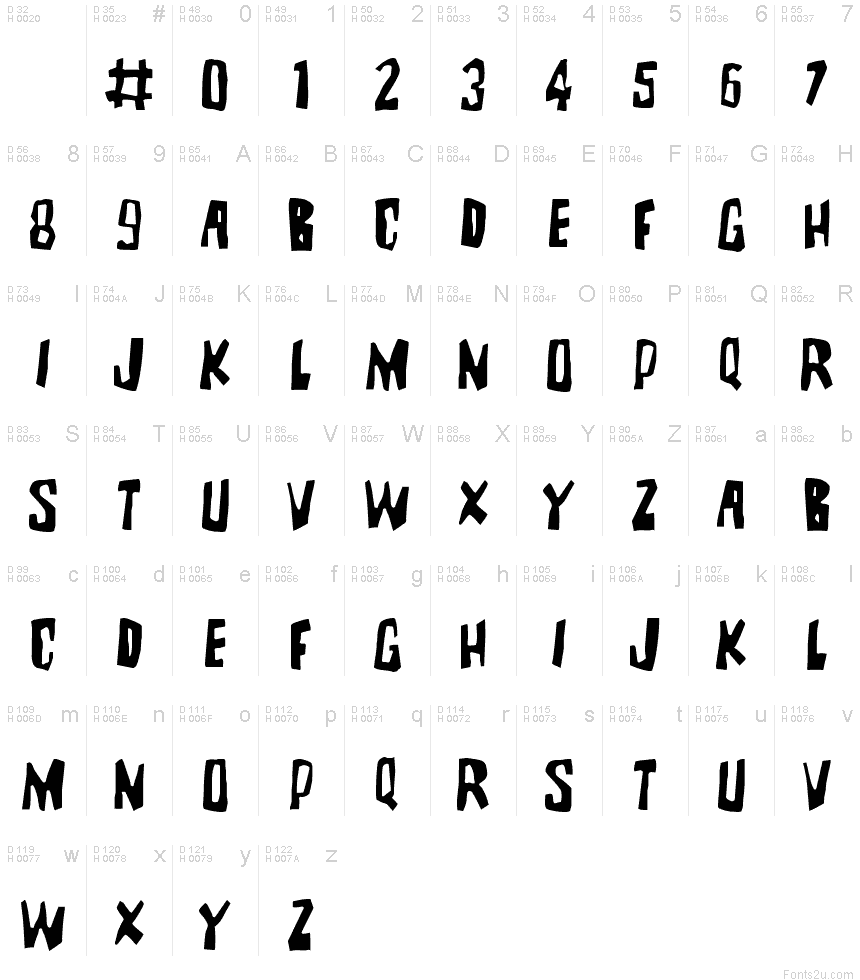
BrutalityExtra
Brutality Extra font by Jakob Fischer of PizzaDude is a free distorted display typeface that looks like it’s been hacked out of black paper with a blunt knife. Each letter leans and wobbles with a rough, cut-and-paste energy, giving headlines a raw, DIY edge. The chunky shapes and uneven rhythm feel loud and unruly, made to grab attention in a split second.
Using Brutality Extra, you can push attitude-heavy gig posters, horror titles, underground zines, album covers, streetwear graphics, and game logos into full-on chaos mode. This free font thrives at large sizes where its jagged silhouettes and wonky spacing can shout across the page or screen. Pair it with a clean, condensed sans-serif for small supporting text to keep the wildness readable while the main title does the damage.